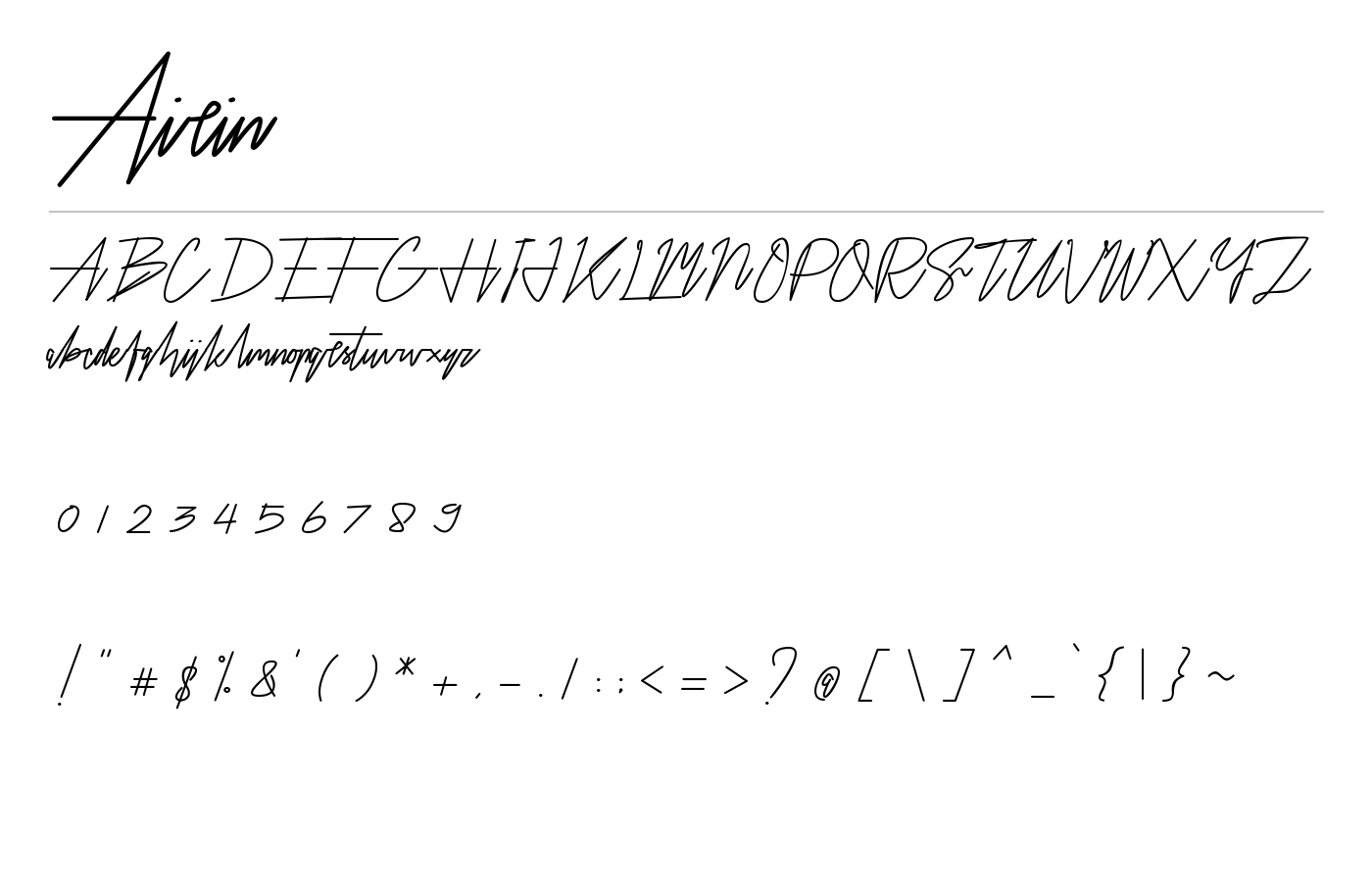
Airin is a delicate, elegant script font with a refined handwritten style featuring slender strokes and a light, airy appearance. Its tall, narrow letterforms and fluid connections create a sense of sophistication and modernity, making it ideal for fashion branding, invitations, and stylish editorial headlines. This font’s graceful, personal touch adds a fresh, contemporary feel while maintaining readability and charm.
Airin Font
About Airin Font